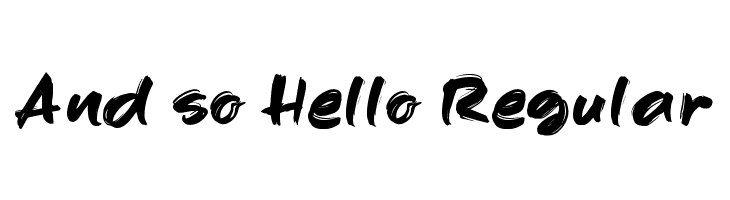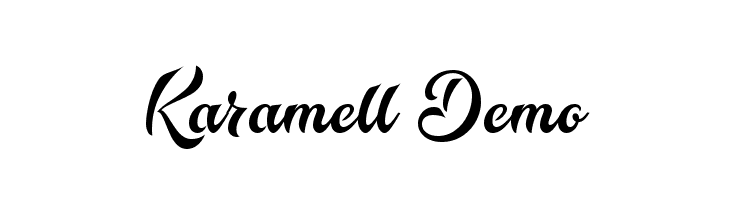
A futuristic, geometric font with a mechanical and technical design.
A modern, rounded font with a futuristic and geometric design.
A bold, distressed font with a rugged, vintage appearance.
A bold, playful font with a hand-drawn, marker-like style.
A playful and dynamic script font with a handwritten feel.
A lively, cursive font with a handwritten, elegant style.
A classic serif typeface with elegant strokes and balanced proportions.
A bold serif font with strong strokes and classic elegance.
A classic serif typeface with elegant proportions and balanced weight.
An artistic and elegant font with modern and classic elements.